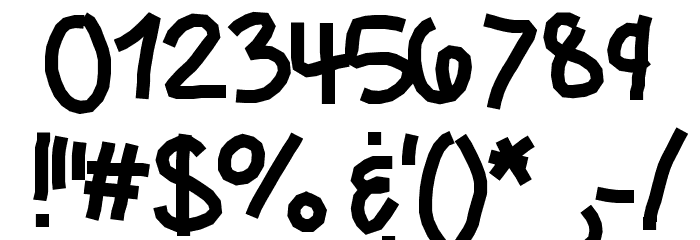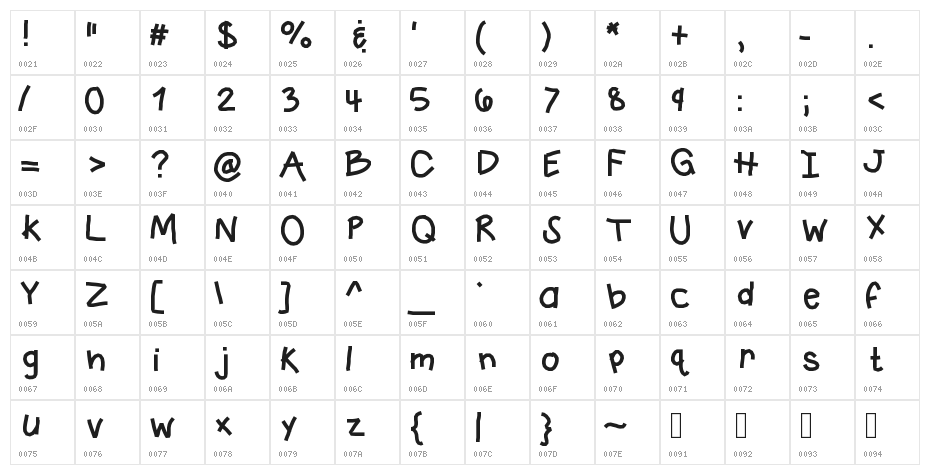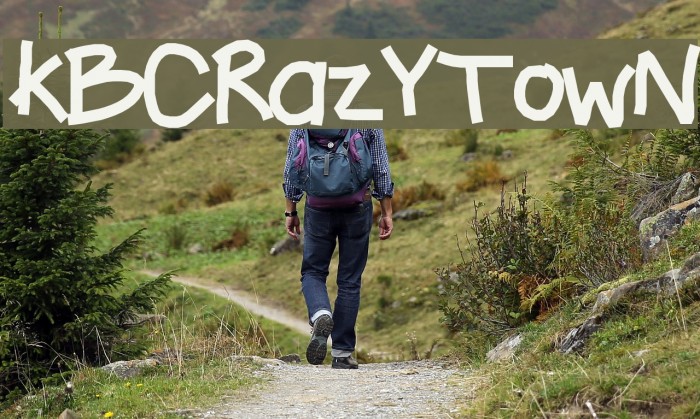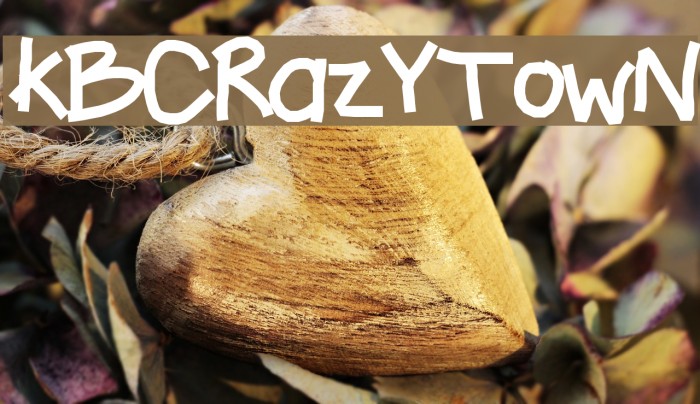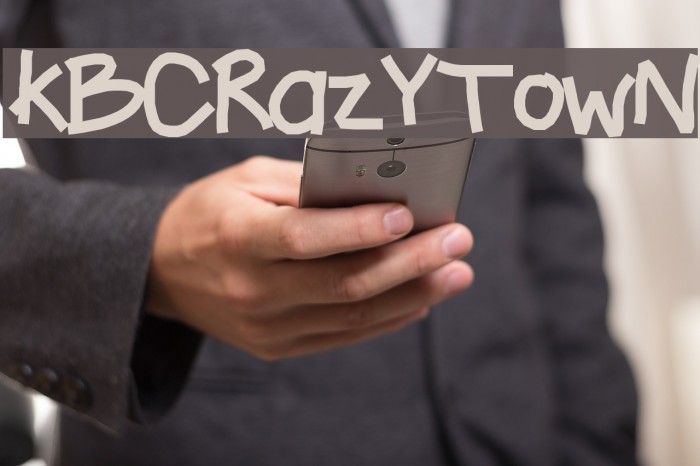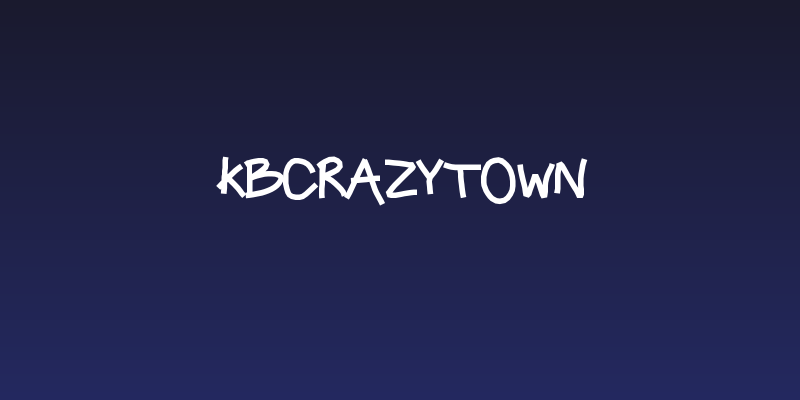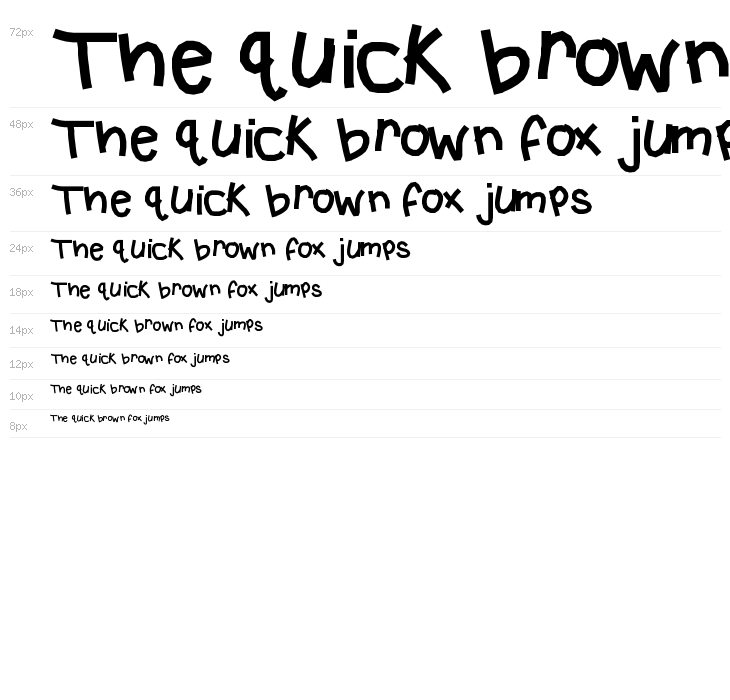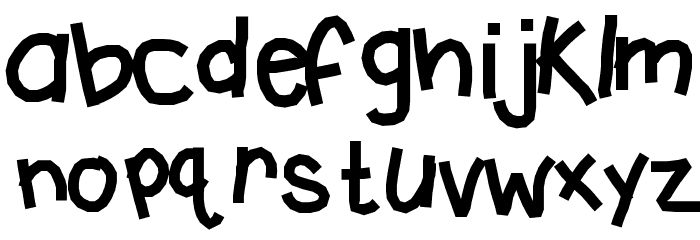
KBCRazYTowN Font
KBCRazYTowN Description
This font features a playful and informal handwritten style, characterized by irregular and slightly exaggerated strokes that give it a whimsical appearance. The letters are bold and have a consistent thickness, creating a strong visual presence. The uppercase and lowercase letters maintain a cohesive look, with rounded edges and a casual flow. Numbers and special characters follow the same playful design, making the font versatile for creative projects. The overall style is reminiscent of a child's handwriting or a casual doodle, adding a touch of fun and personality to any text.
KBCRAZYTOWN UPPERCASE
KBCRAZYTOWN LOWERCASE
KBCRAZYTOWN OTHER CHARS
| Overall Style | Playful, Informal |
| Proposed Projects | Ideal for children's books, playful branding, casual invitations, and creative posters. |